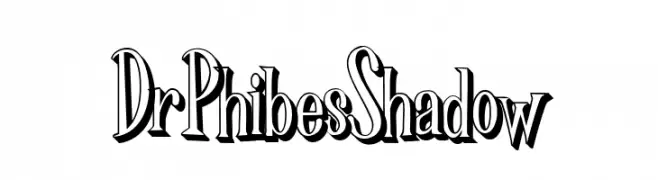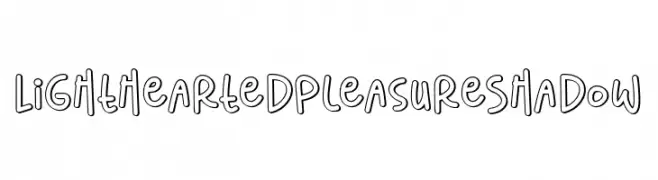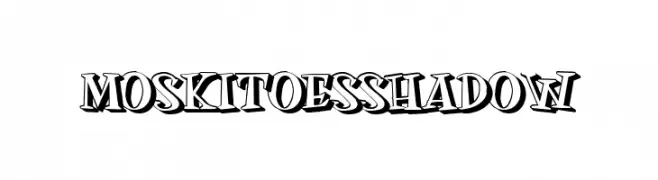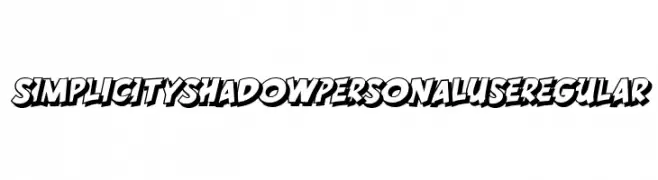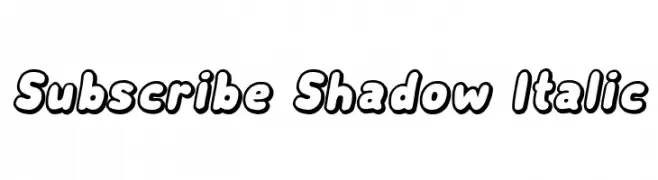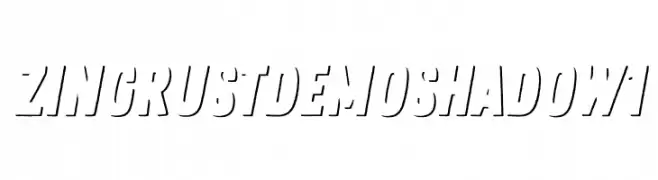
A bold, shadowed font with a three-dimensional effect, ideal for impactful designs.
Bold, shadowed font with a dynamic, three-dimensional style.
A bold, playful font with a shadow effect for a three-dimensional look.
A bold, playful font with a shadow effect and rounded edges.
A bold, shadowed font with a vintage flair and sharp serifs.
A playful, hand-drawn font with a shadow effect, perfect for fun and creative projects.
A bold, shadowed font with a three-dimensional, playful style.
A playful, shadowed font with bold, dynamic characters.
A bold, shadowed font with a dynamic, three-dimensional style.